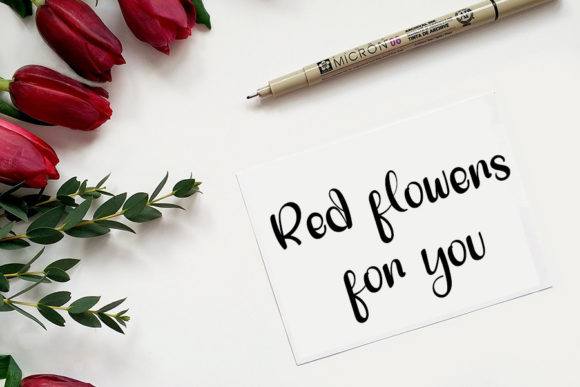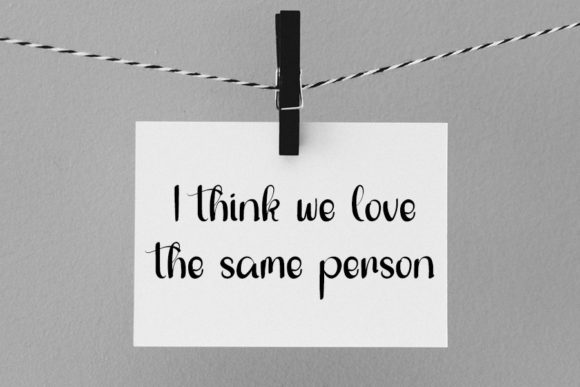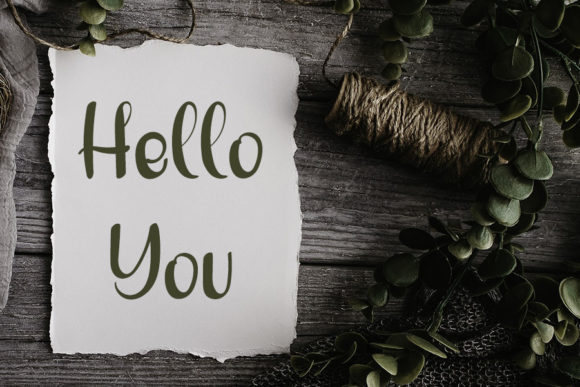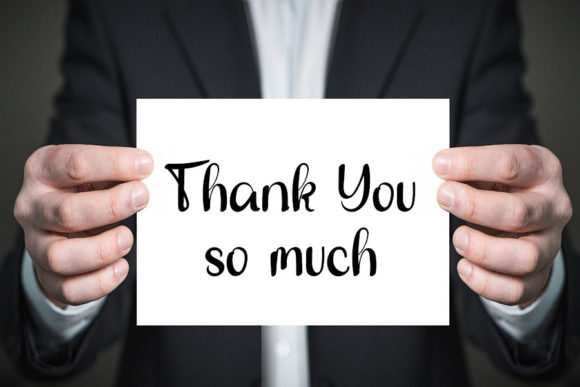
Introducing Buffet Font: Elevate Your Designs with Timeless Elegance
In the world of typography, a stylish handwritten font can make all the difference in elevating your designs to the next level. If you’re on the hunt for a font that exudes a contemporary atmosphere while maintaining impeccable form, look no further than Buffet Font. Inspired by timeless classic calligraphy, Buffet is a beautifully crafted font that brings balance, variety, and sophistication to your projects.
The Inspiration Behind Buffet Font
Buffet Font draws its inspiration from the elegance of classic calligraphy, reimagined with a modern twist. The result is a stylish handwritten font that feels both nostalgic and fresh. The creators of Buffet have successfully blended traditional calligraphic elements with contemporary design principles, yielding a font that is both versatile and visually stunning.
Key Features of Buffet Font
- Contemporary Atmosphere: Buffet Font boasts a modern aesthetic that fits seamlessly into today’s design trends, making it perfect for projects that demand a current and stylish look.
- Impeccable Form: With its roots in classic calligraphy, Buffet maintains an impeccable form that adds a touch of sophistication to any design.
- Balanced and Varied: The font’s balanced and varied characters ensure that your text remains engaging and easy to read, offering just the right amount of uniqueness to stand out.
Why Choose Buffet Font for Your Projects?
Whether you’re a designer working on a client’s branding, a crafter creating personalized gifts, or a DIY enthusiast looking for the perfect font for your handmade projects, Buffet Font is an excellent choice. Its versatility means it can be used across a wide range of applications, from digital platforms to print materials.
Enhance Your Designs
Buffet Font can elevate your designs in numerous ways:
- Branding: Use Buffet to create memorable logos, business cards, and marketing materials that reflect a sophisticated brand image.
- Stationery: Add a personal touch to your letters, invitations, and thank-you cards with this elegant font.
- Digital Content: Make your social media posts, blogs, and website content more engaging and visually appealing with Buffet.
- Crafting: From scrapbooking to custom signs, Buffet Font can add a professional and personalized feel to your craft projects.
Tips for Using Buffet Font Effectively
To get the most out of Buffet Font, consider the following tips:
- Pair with Complementary Fonts: Combine Buffet with clean sans-serif fonts for contrast and visual interest.
- Adjust Size and Color: Experiment with different sizes and colors to emphasize certain words or phrases.
- Utilize Ligatures: If available, use ligatures to add a more natural, handwritten feel to your text.
Buffet Font is a stylish and versatile addition to any designer’s or crafter’s toolkit. Its unique blend of contemporary style and classic calligraphic elegance makes it the perfect choice for those looking to add a touch of sophistication to their projects. With its impeccable form, balanced and varied characters, and wide range of applications, Buffet Font is sure to become a favorite in your collection.